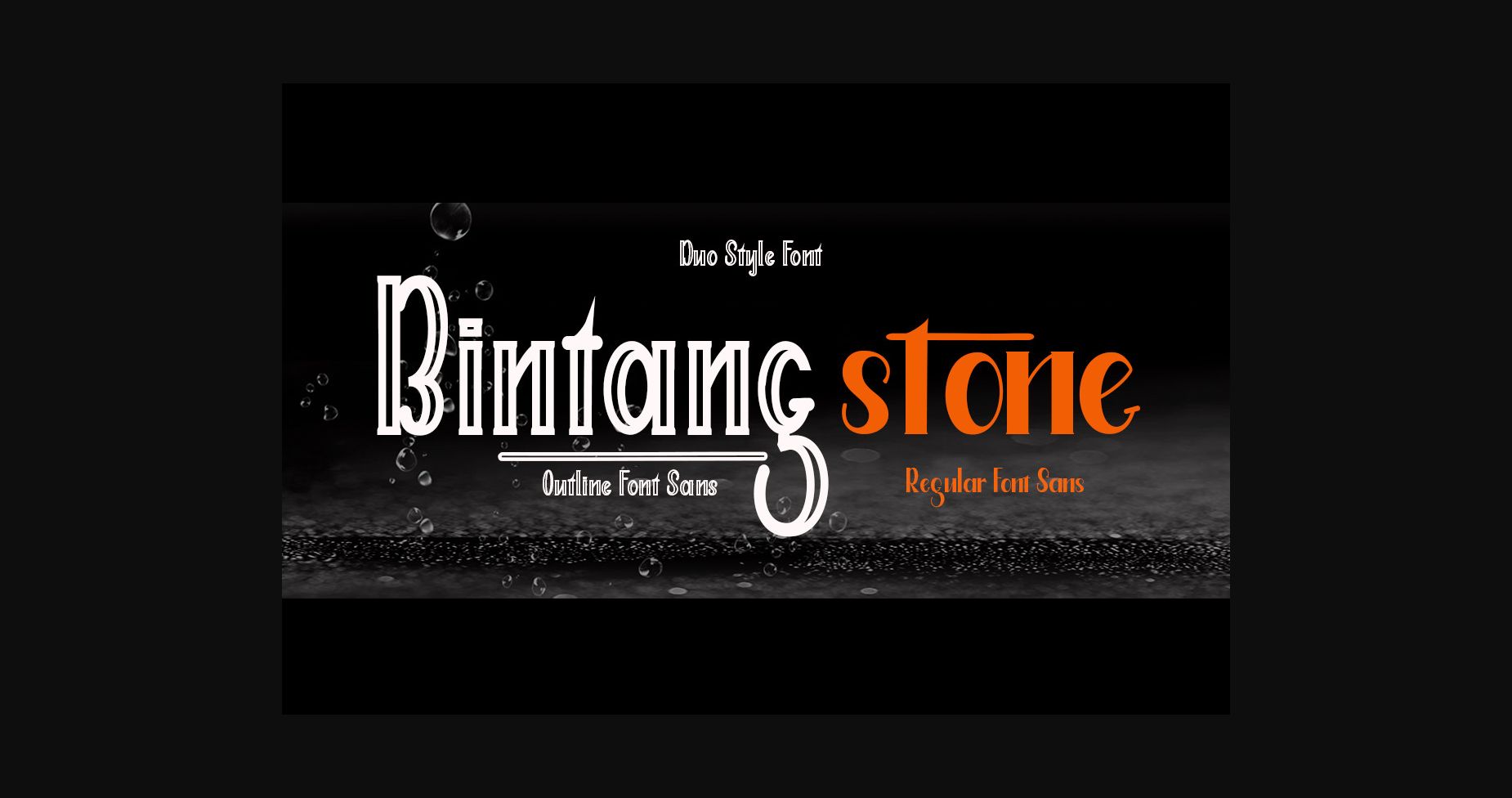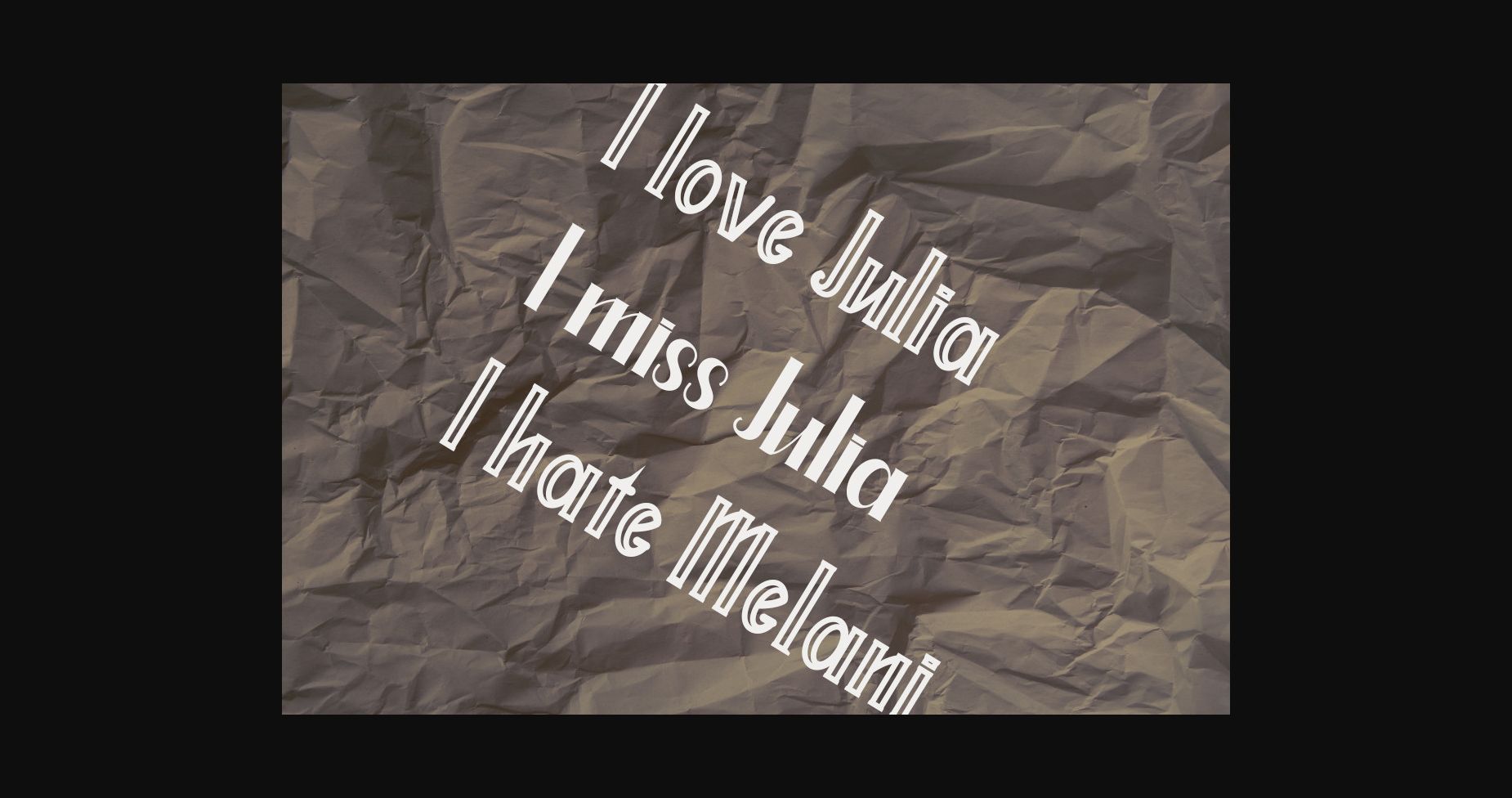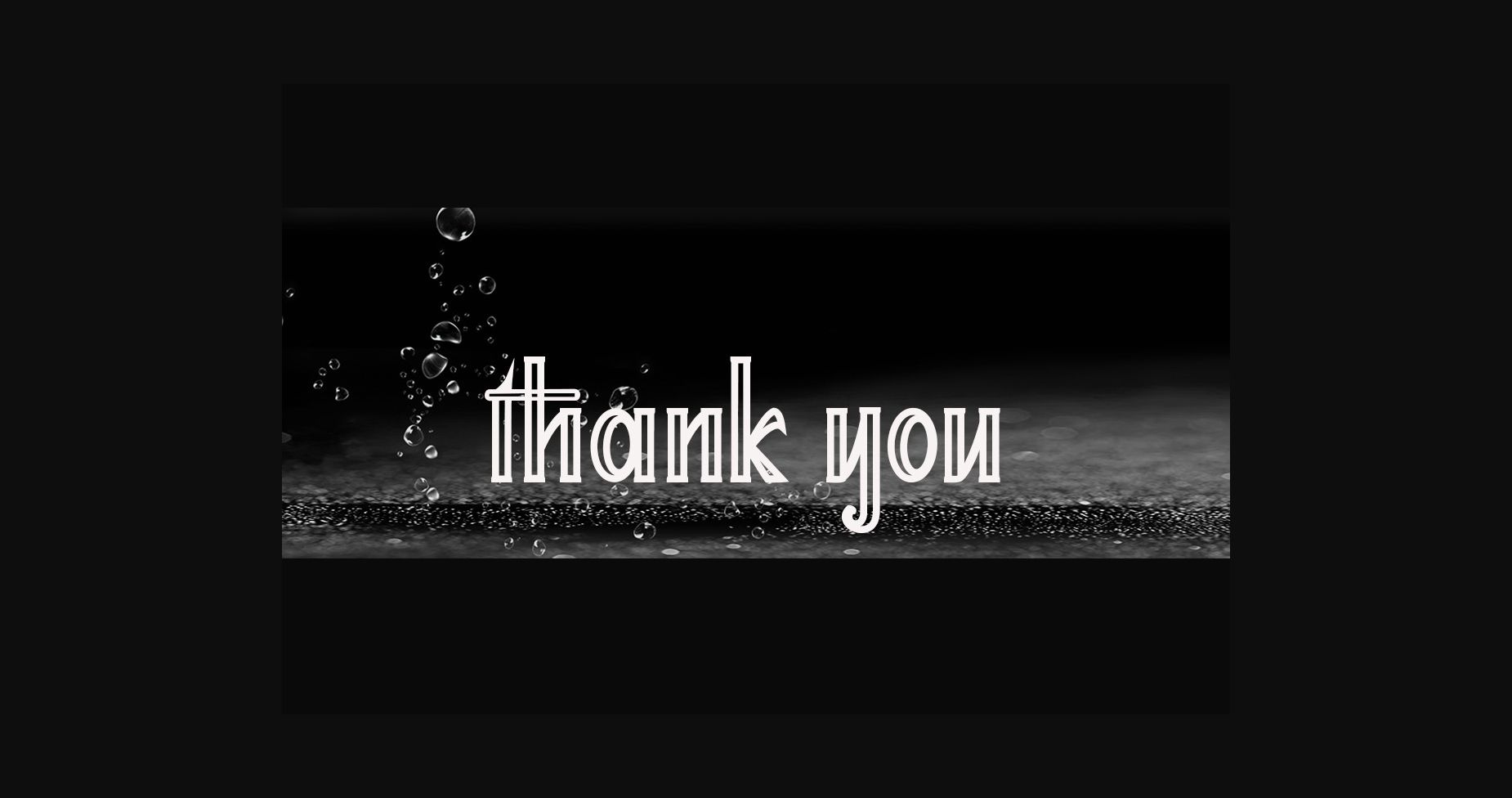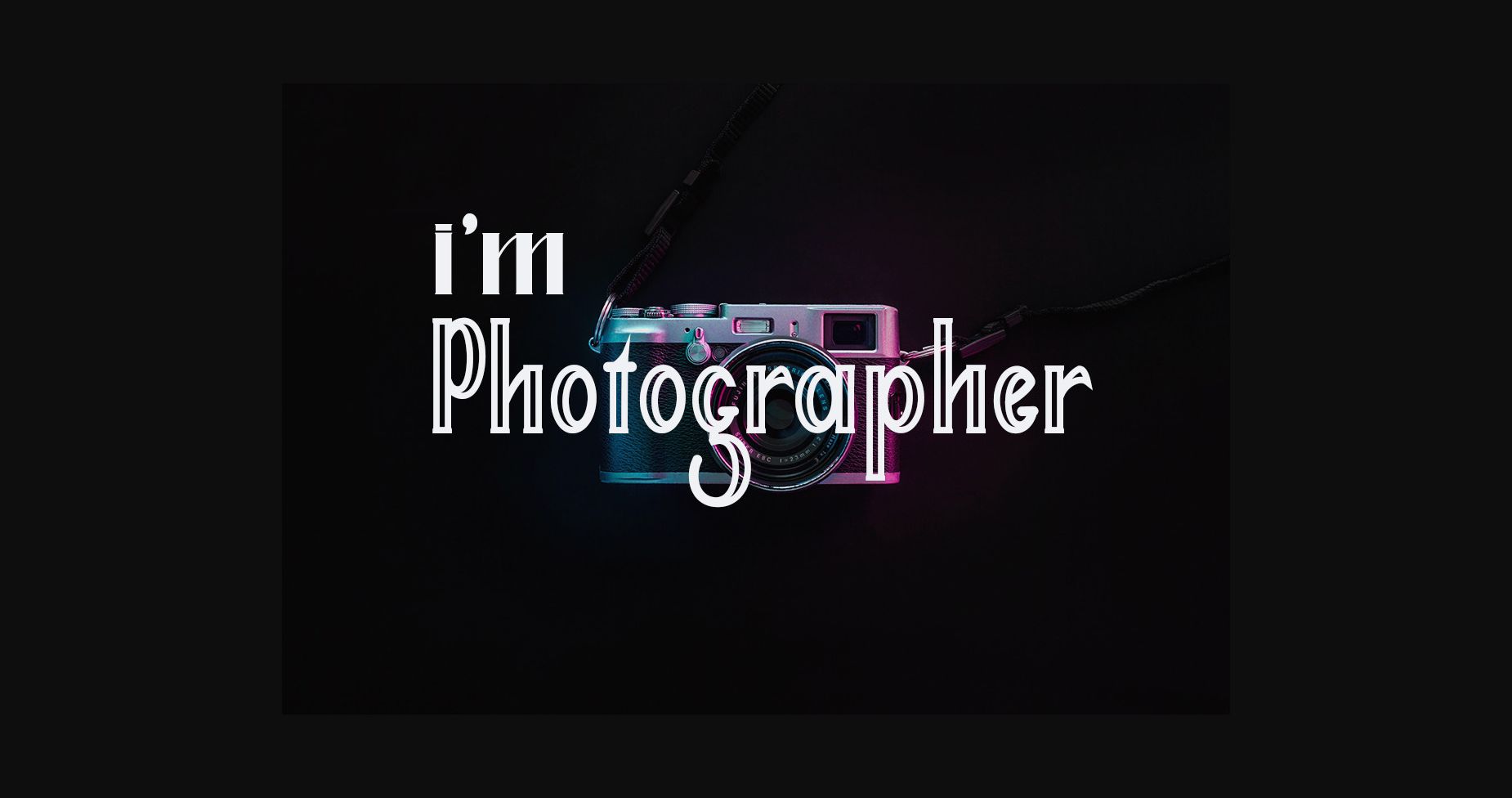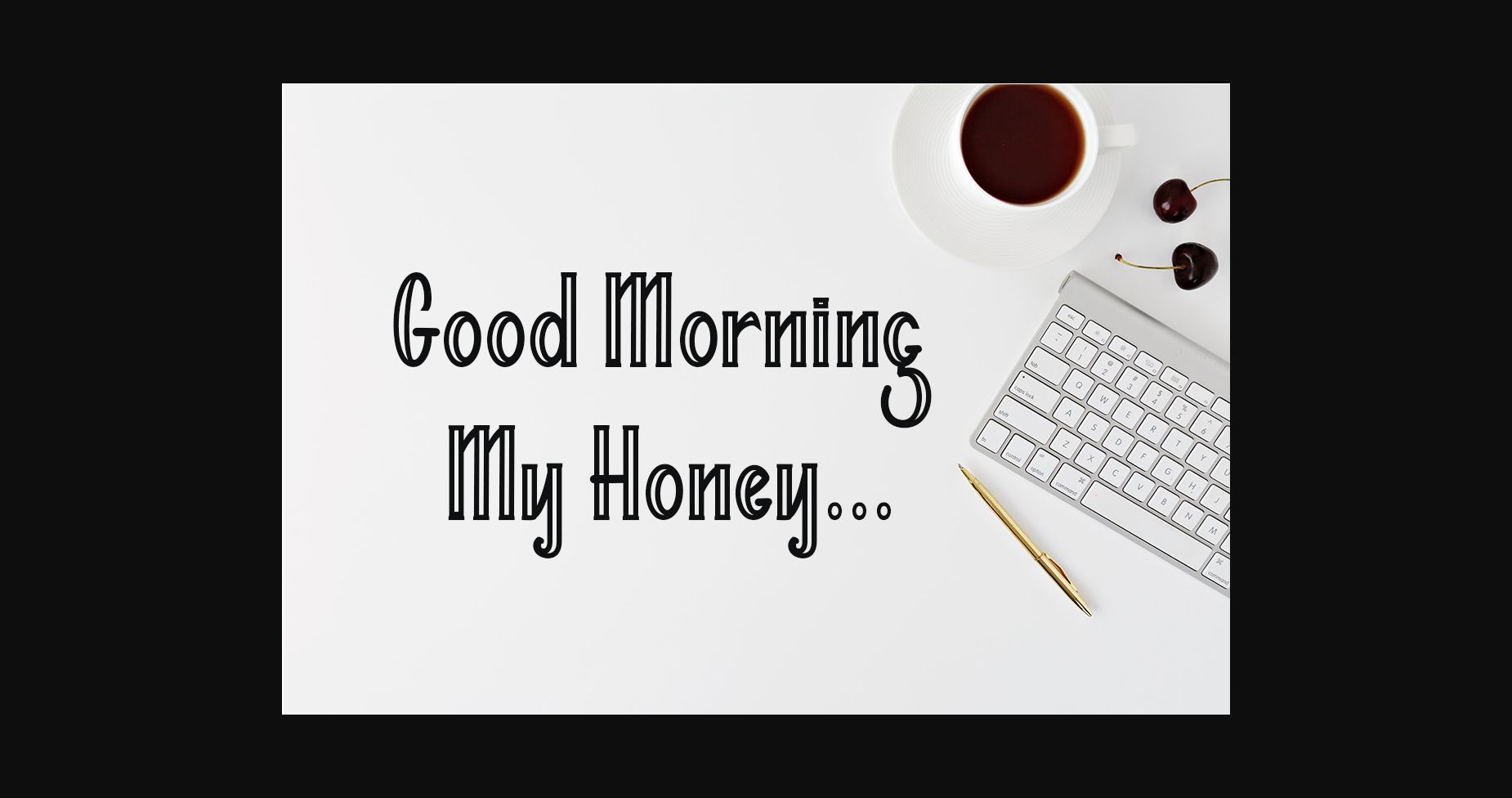
About Bintang Stone Duo Font
Bintang Stone is a new sans serif font duo that has a sleek look and is very simple and easy to manipulate: logos, slogans, and advertising messages.
This font works great in headings, logos, wedding invitations, t-shirts, letterheads, signage, labels, news, posters, badges, etc.